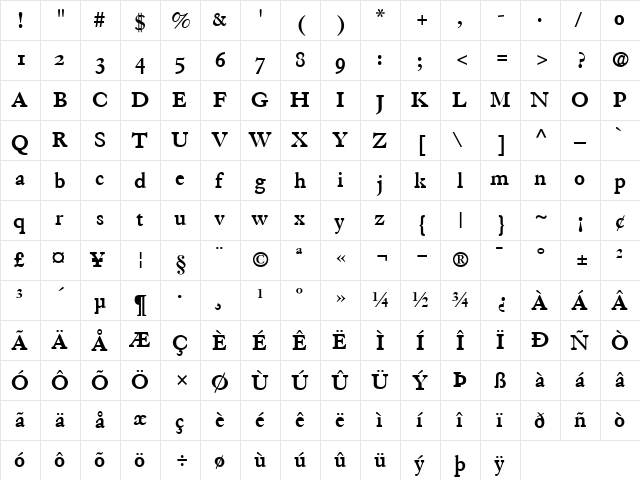
GranjonOldStyleFigures Bold
Design Context for GranjonOldStyleFigures Typeface
GranjonOldStyleFigures brings classic typographic sensibility to the table — its serifs and measured letterforms reflect centuries of print heritage. The heavy weight commands attention and anchors typographic hierarchies.
Pro Tip: Use GranjonOldStyleFigures for editorial body copy and considered headline work. Pair with a neutral sans for UI elements or captions to create a classic hierarchy.